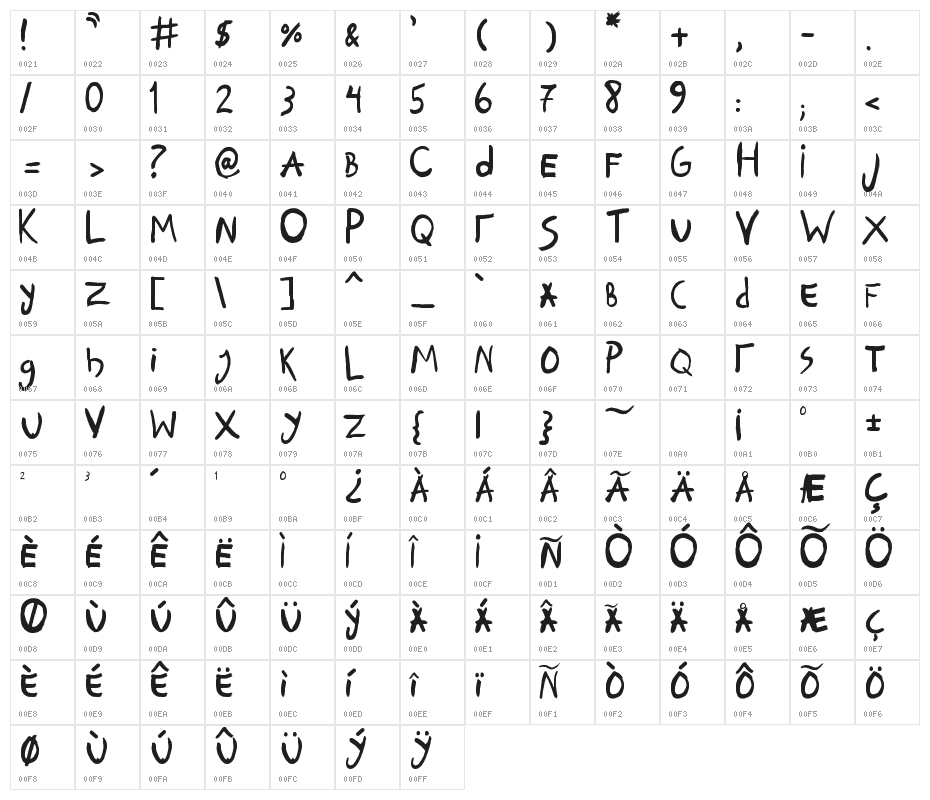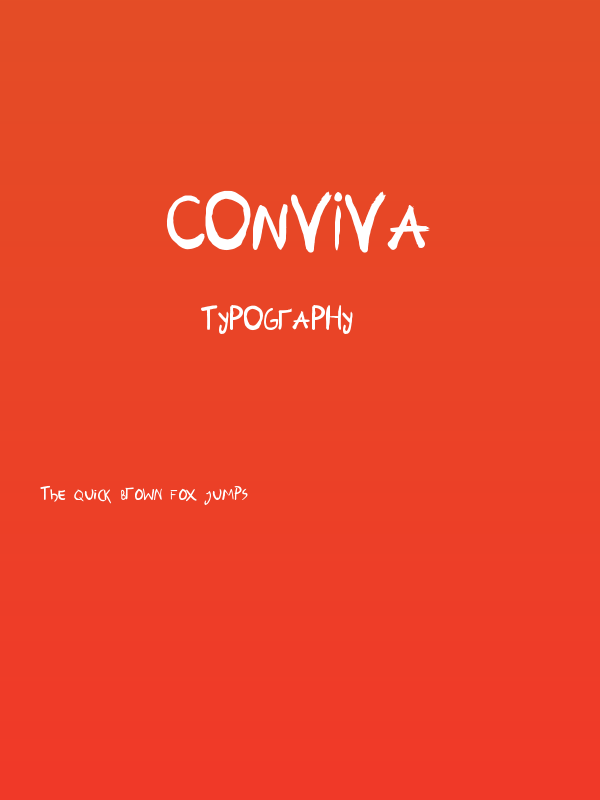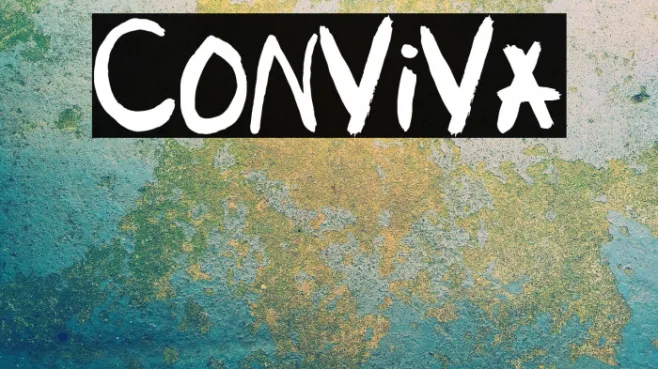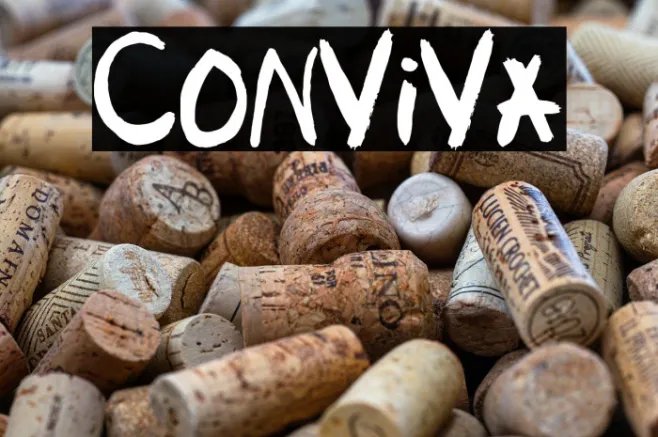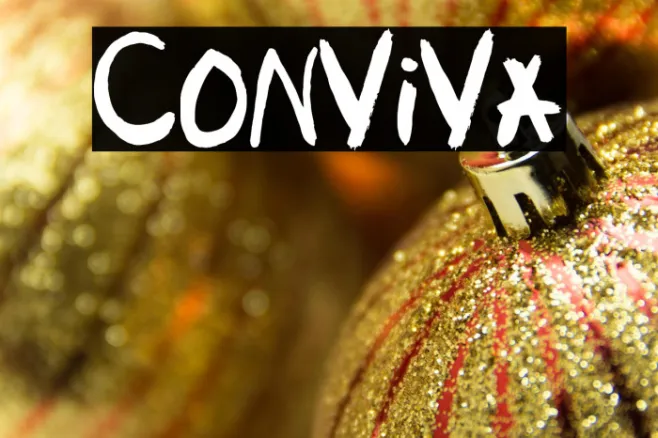
Conviva Font
Conviva Description
This font exudes a playful and energetic vibe, characterized by its hand-drawn, brush-like strokes. The letters are irregular and dynamic, giving a sense of movement and spontaneity. The uppercase and lowercase letters are distinct, with a casual and informal style that suggests a handwritten note. The numbers and special characters maintain this lively aesthetic, making the font suitable for creative and informal projects. Its unique style is both approachable and artistic, perfect for capturing attention.
| Proposed Projects | Ideal for children's book covers, creative posters, casual branding, and artistic invitations. |